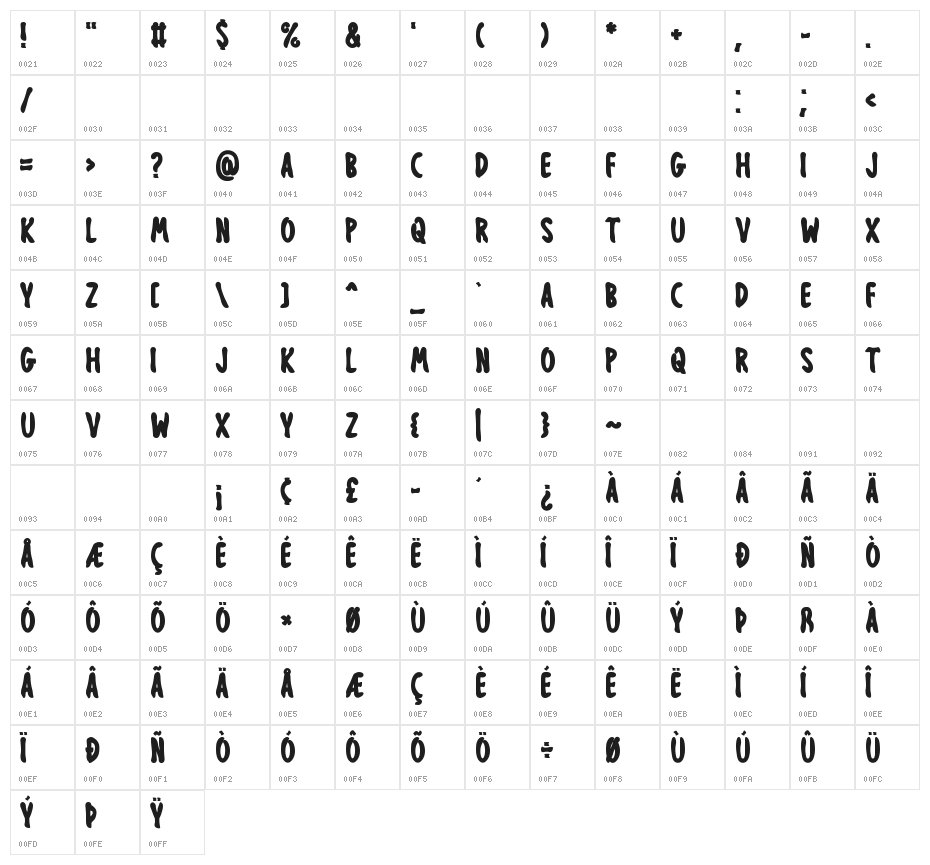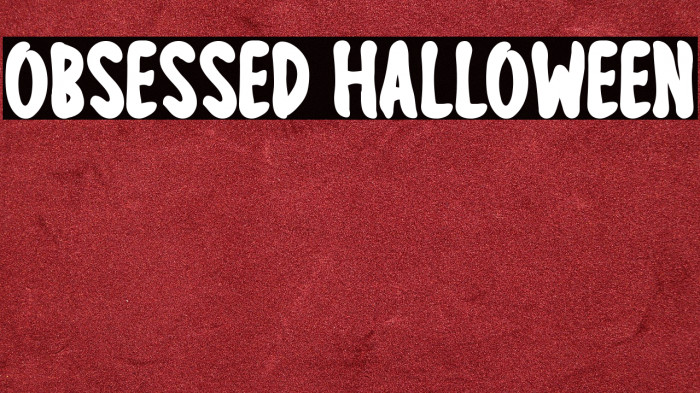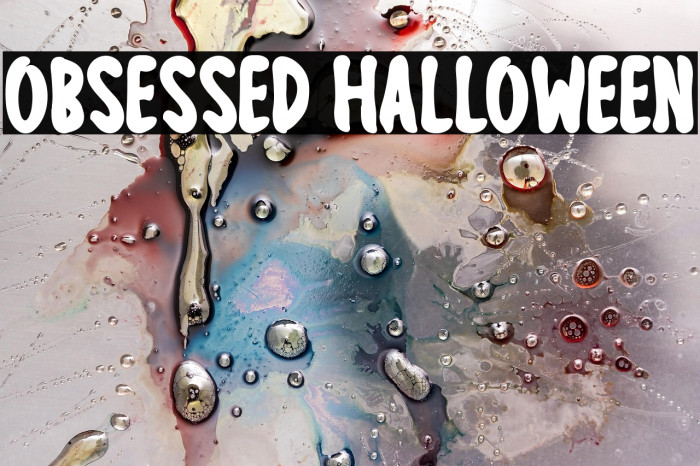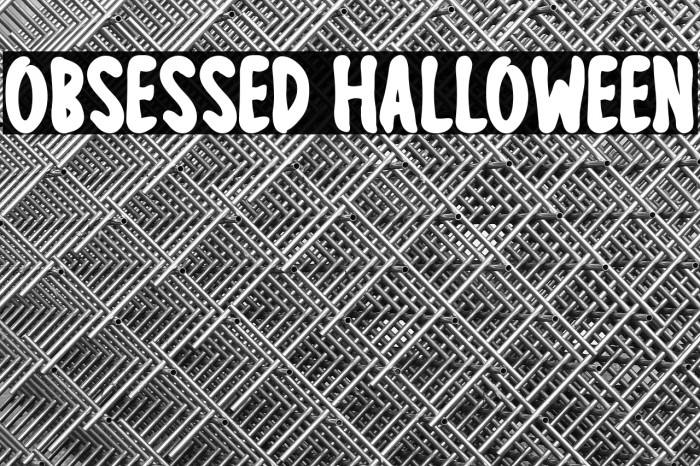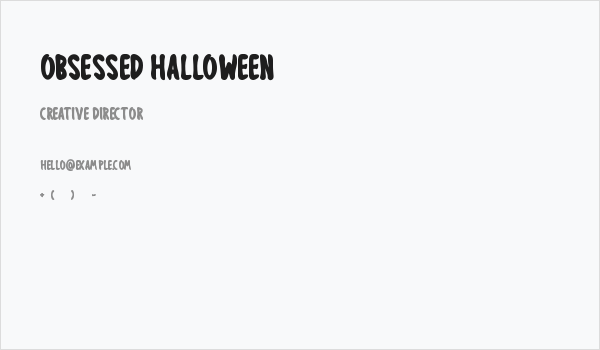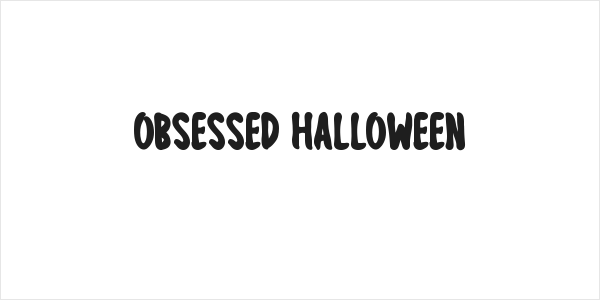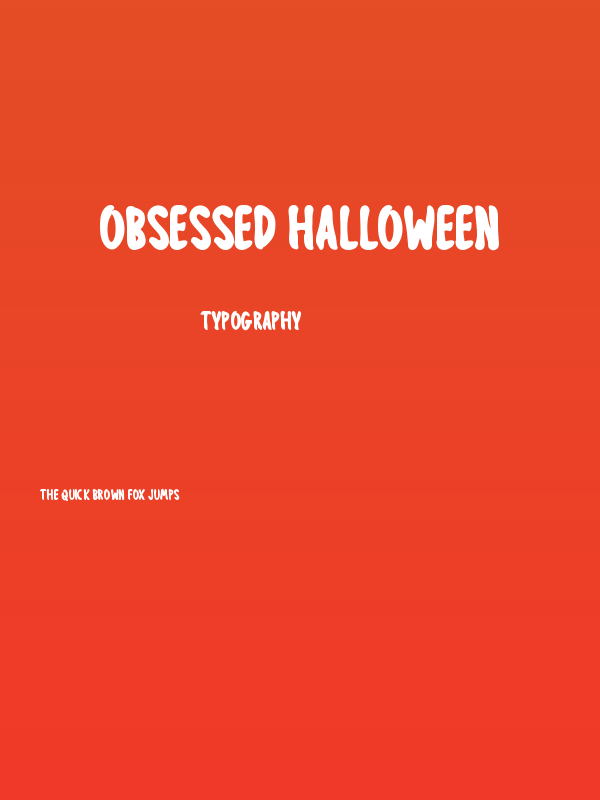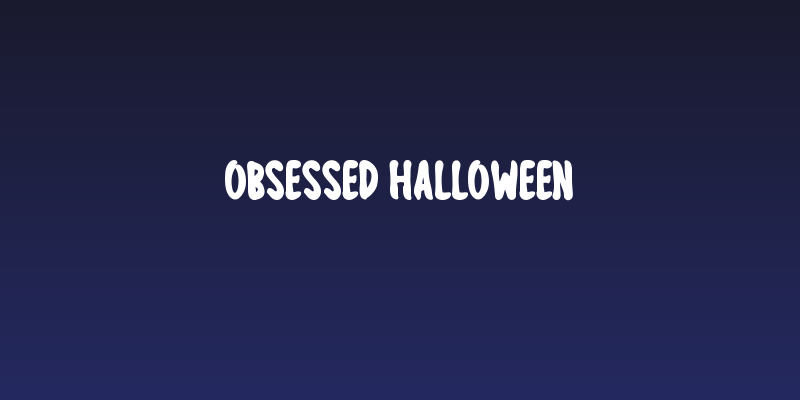
Obsessed Halloween Font
Obsessed Halloween Description
This font features a bold and playful design with a slightly spooky vibe, perfect for Halloween-themed projects. The characters are rounded and have a hand-drawn appearance, adding a whimsical touch. The uppercase and lowercase letters maintain a consistent style, with thick strokes and a slightly irregular form that enhances its quirky charm. The special characters are equally bold and match the overall aesthetic, making it suitable for creative and festive designs.
| Proposed Projects | Ideal for Halloween invitations, party flyers, themed posters, and creative branding. |